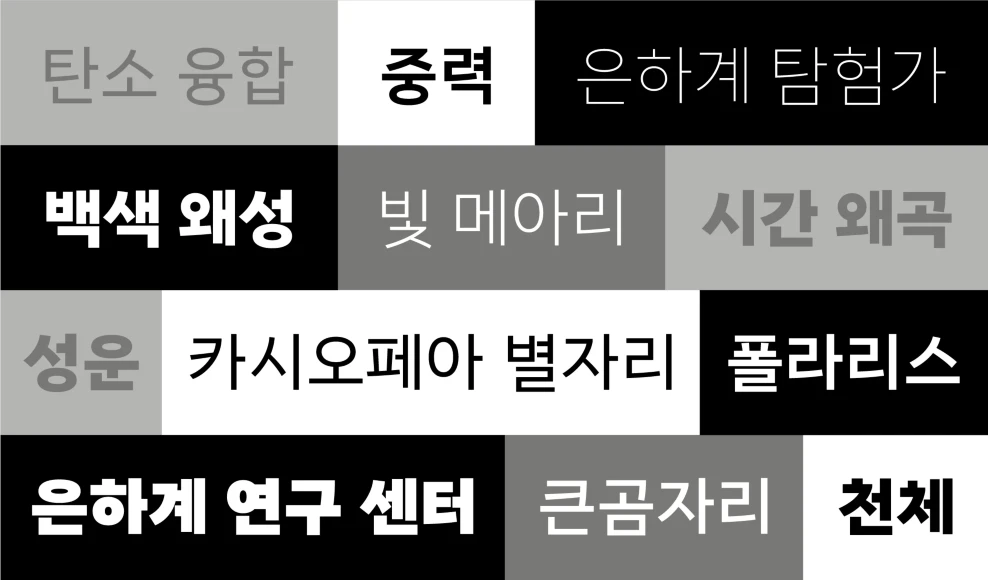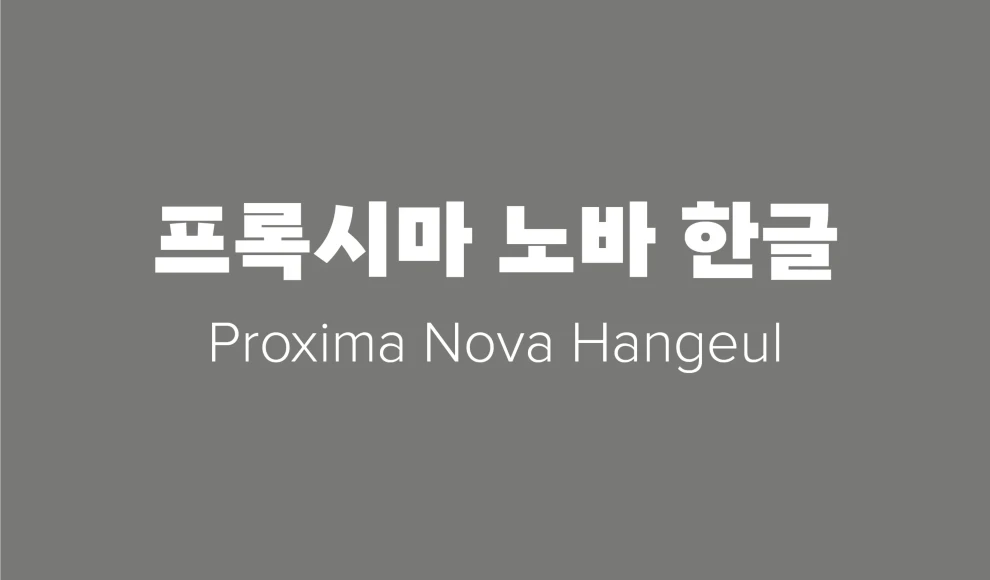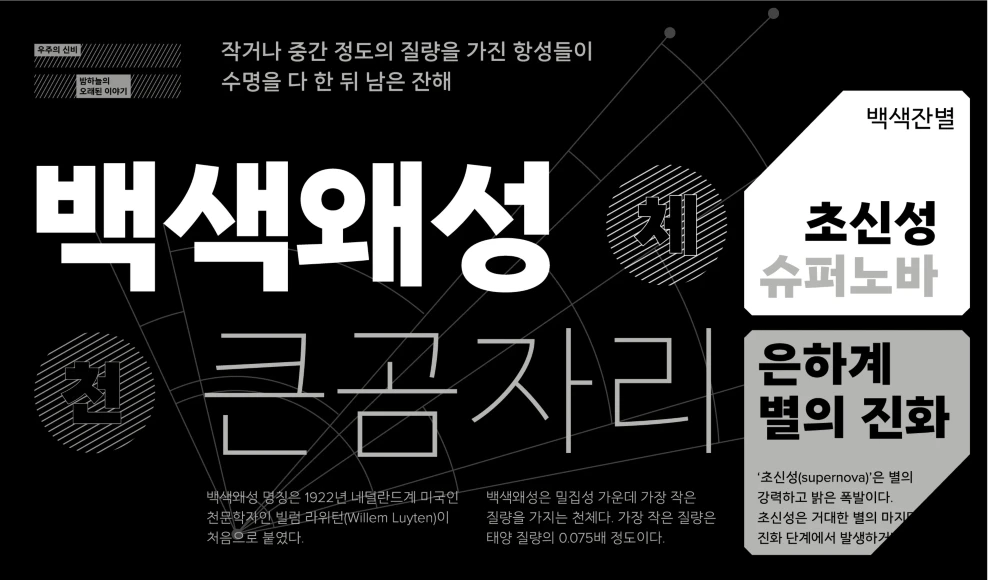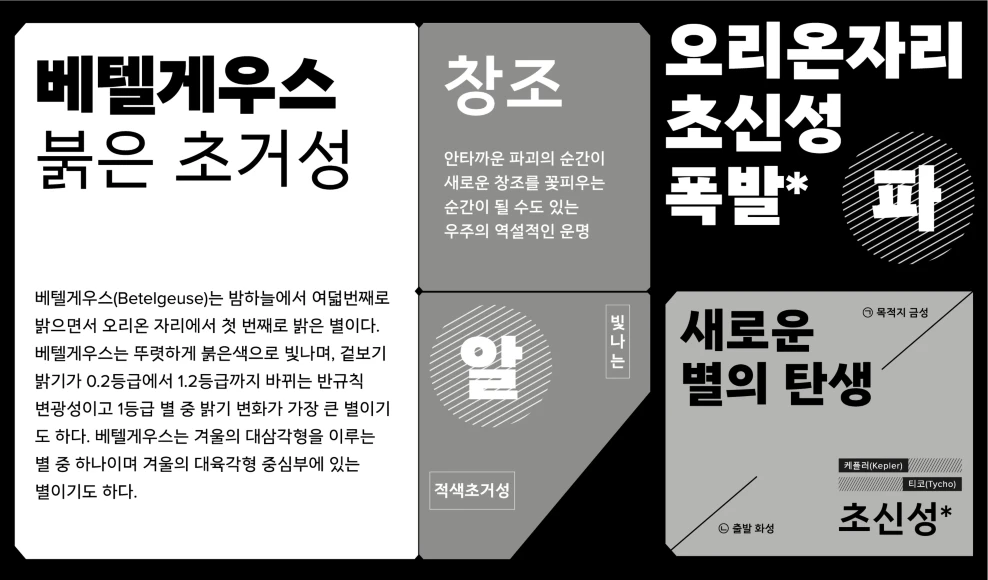
Proxima Nova Hangeul
By Mark Simonson & lo-ol Type Studio
Proxima Nova Hangeul Thin
인터넷에서 가장 사랑받는 서체 중 하나 , 이제 세계를 향할 준비가 되다
Proxima Nova Hangeul Light
인터넷에서 가장 사랑받는 서체 중 하나 , 이제 세계를 향할 준비가 되다
Proxima Nova Hangeul Regular
인터넷에서 가장 사랑받는 서체 중 하나 , 이제 세계를 향할 준비가 되다
Proxima Nova Hangeul Medium
인터넷에서 가장 사랑받는 서체 중 하나 , 이제 세계를 향할 준비가 되다
Proxima Nova Hangeul Semi Bold
인터넷에서 가장 사랑받는 서체 중 하나 , 이제 세계를 향할 준비가 되다
Proxima Nova Hangeul Bold
인터넷에서 가장 사랑받는 서체 중 하나 , 이제 세계를 향할 준비가 되다
Proxima Nova Hangeul Extra Bold
인터넷에서 가장 사랑받는 서체 중 하나 , 이제 세계를 향할 준비가 되다
Proxima Nova Hangeul Black
인터넷에서 가장 사랑받는 서체 중 하나 , 이제 세계를 향할 준비가 되다
Proxima Nova Hangeul (2024) was designed by lo-ol Type Studio for the Proxima Super Nova collection. Hangeul — the alphabet used for the Korean language — is structurally larger than Latin, requiring adjustments to align visually with the original and maintain the distinctive script’s integrity. Also important is balancing grotesque and geometric sans details to capture the essence of Proxima Nova. Available in eight weights — Thin to Black — this growing family of typefaces is ready to become even more popular worldwide.